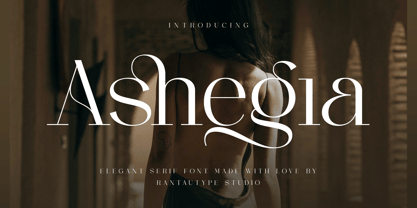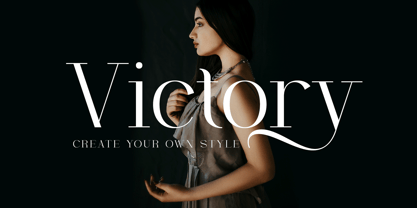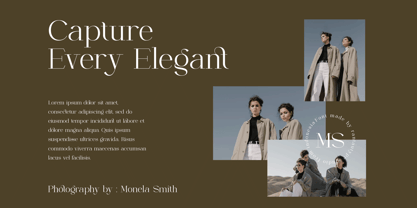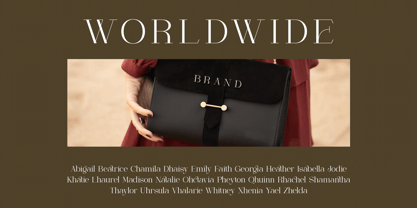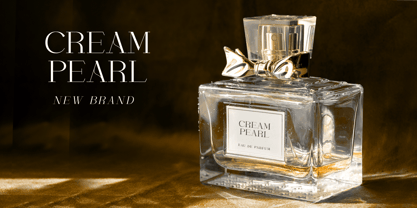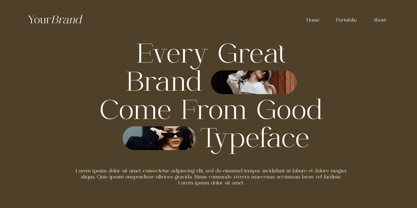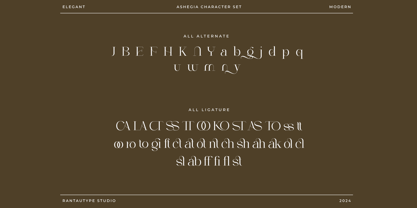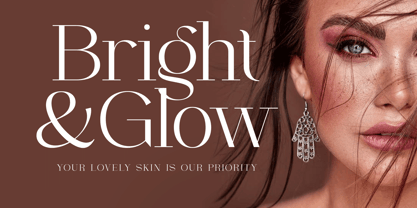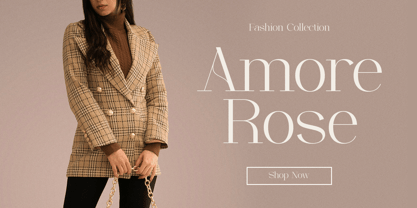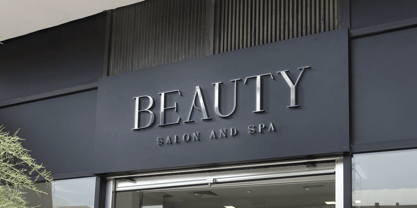
Ashegia
by RantauType
The Ashegia Font Family was designed by Yudi Pratama Chandra and published by RantauType. Ashegia contains 2 styles and family package options. More about this family
Ashegia is modern serif font inspire by trend fashion visual design. Ashegia come with a thin shape make it look elegant. Ashegia is a Perfect choice for any creative endeavor, creating elegant, modern, chic, lifestyle design such as logotype, title, cover, branding, invitations, wedding designs, display and magazine, social media posts, advertisements, printed quotes, product packaging, corporate brand, product designs, labels, photography, watermarks, special events and any other project with modern touch.
• Alternate and ligature
Designers: Yudi Pratama Chandra
Foundry: RantauType